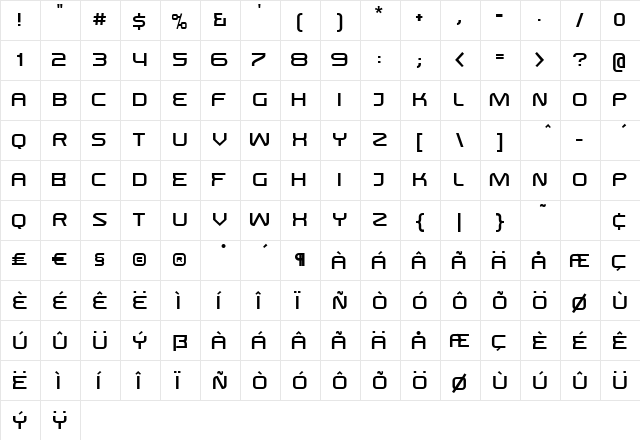
SwiszRegular Regular
Design Context for SwiszRegular Typeface
SwiszRegular takes a measured approach to typography — its balanced proportions and neutral character make it a reliable workhorse for both digital and print work.